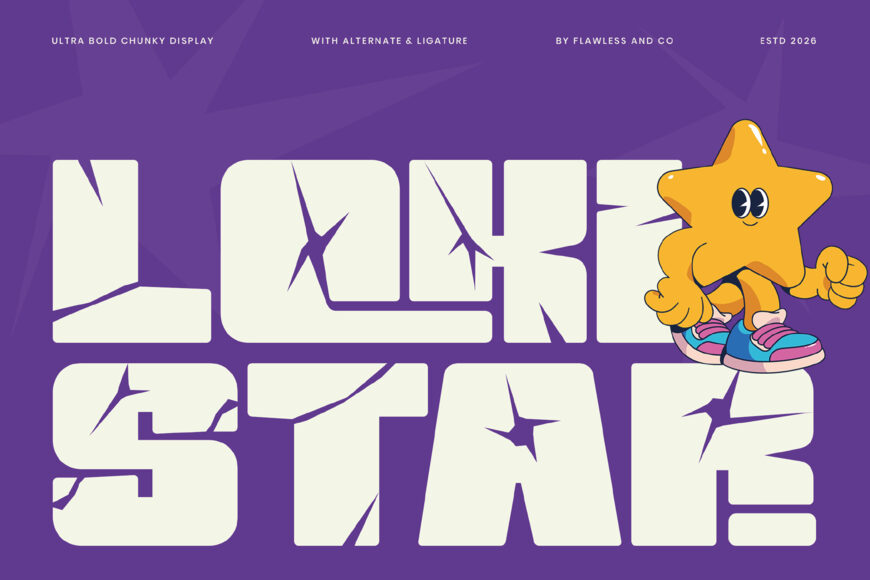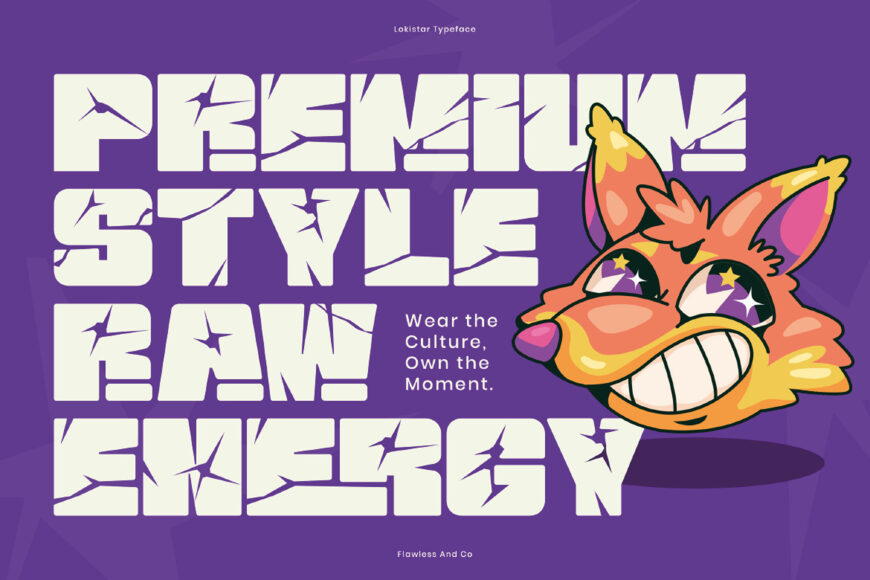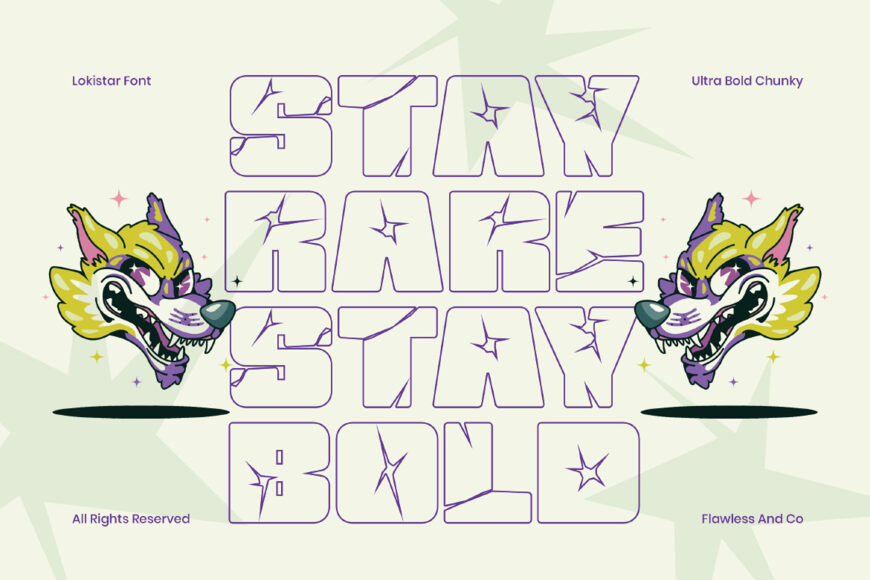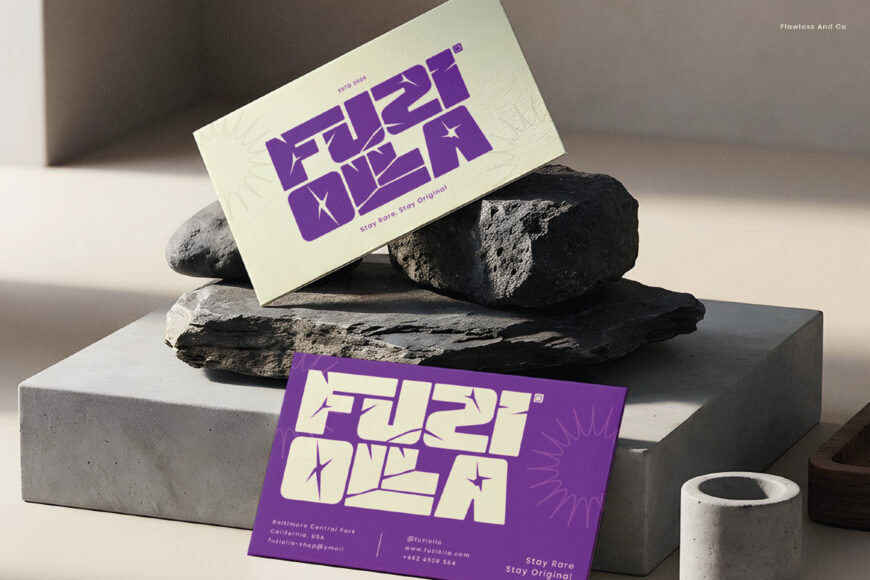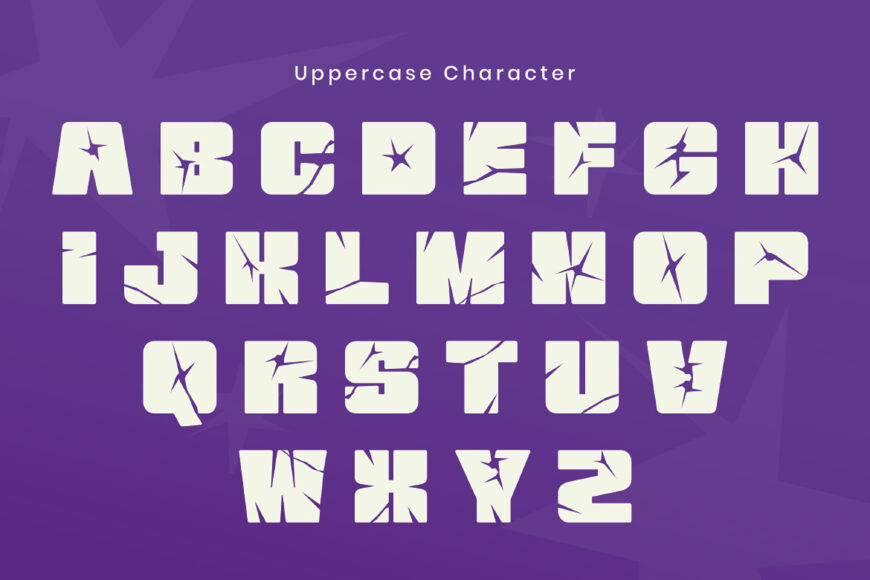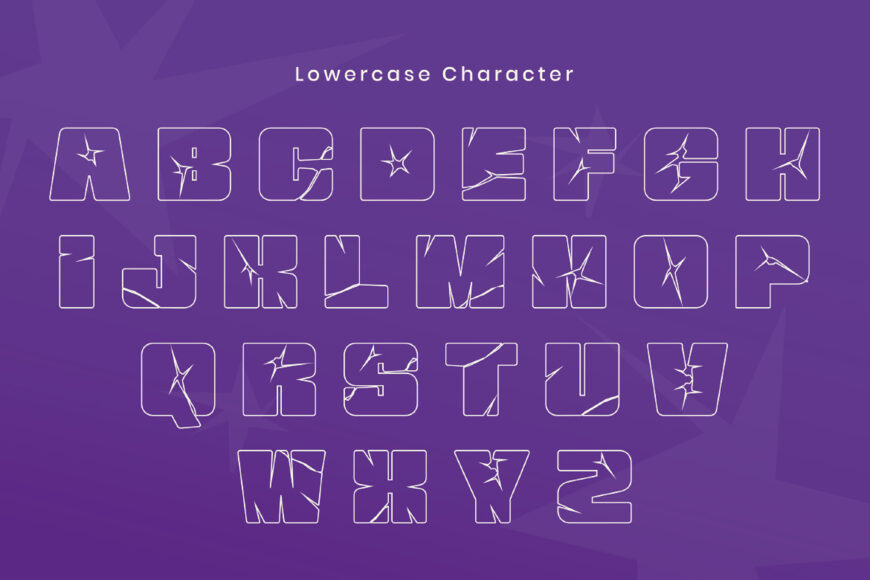
Lokistar is an ultra bold chunky display font designed to make a powerful and playful statement. Featuring thick rounded letterforms, strong geometric shapes, and distinctive star-inspired cutouts, Lokistar brings a fun and energetic personality to every design.
Its oversized appearance and bold structure make it highly effective for eye-catching headlines, posters, logos, and attention-grabbing display typography. With its combination of chunky forms and playful details, Lokistar is perfect for designers looking to create bold visuals with a youthful, expressive, and contemporary feel.